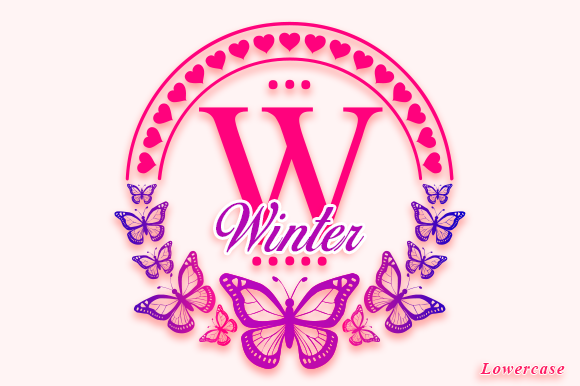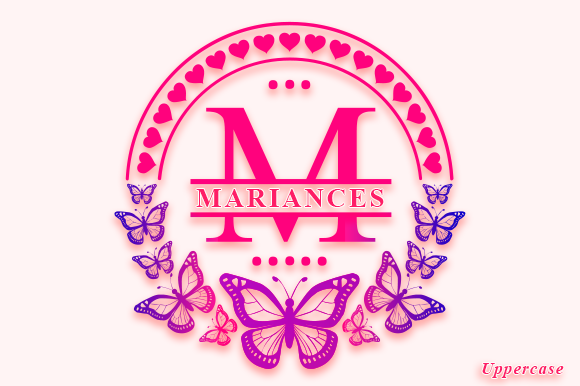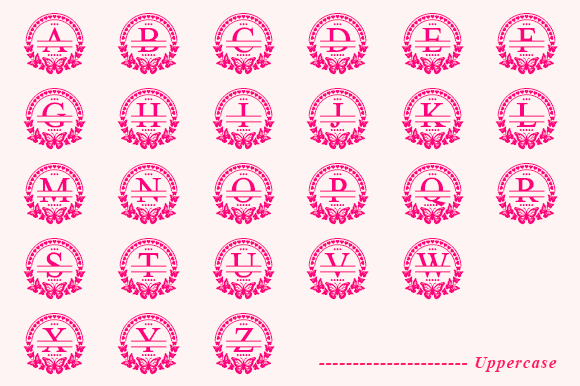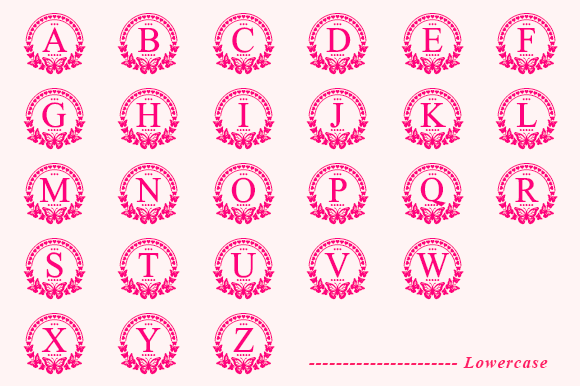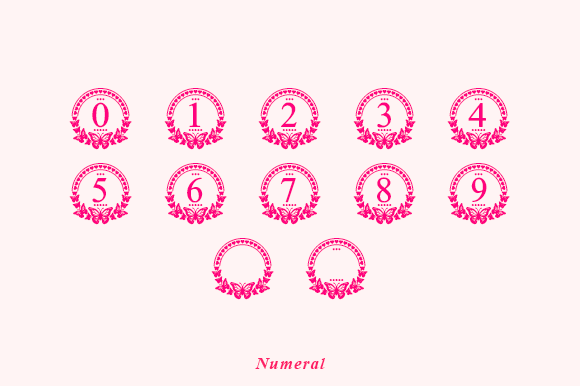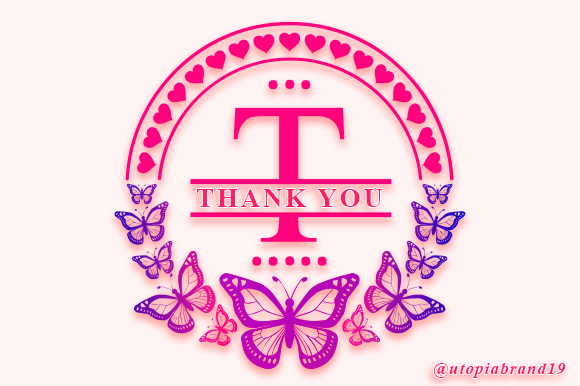
Introducing Butterlove Monogram Font: The Perfect Addition to Your Romantic Designs
Are you a designer or crafter looking for a unique and romantic font to add a touch of elegance to your projects? Look no further than the Butterlove Monogram Font. This dainty and decorative font is perfect for creating beautiful love letters, wedding invitations, and other design ideas that require a personal and sentimental touch.
What Makes Butterlove Monogram Font So Special?
Butterlove Monogram Font is a one-of-a-kind decorative font that exudes romance and sophistication. Its delicate and intricate design makes it perfect for adding a touch of whimsy and charm to any project. Whether you’re creating a wedding invitation, a love letter, or a custom gift tag, this font is sure to make your design stand out.
Perfect for Romantic Occasions
The Butterlove Monogram Font is specifically designed for romantic occasions. Its lovely and elegant design makes it perfect for:
- Love letters and romantic messages
- Anniversary cards and gifts
- Baby shower invitations and decorations
- Any other design project that requires a touch of romance and elegance
Easy to Use and Customize
Tips for Using Butterlove Monogram Font
Here are a few tips for using Butterlove Monogram Font in your designs:
- Use it as a headline font to add a touch of elegance and sophistication to your design
- Pair it with a simple sans-serif font for a beautiful and contrasting look
- Use it to create custom monograms and logos for your clients or personal projects
Why Designers and Crafters Love Butterlove Monogram Font
Butterlove Monogram Font has quickly become a favorite among designers and crafters, and for good reason. Here are just a few reasons why:
- Unique and one-of-a-kind design
- Perfect for romantic occasions and designs
- Adds a touch of elegance and sophistication to any project
- Versatile and can be used in a variety of design projects
If you’re looking for a unique and romantic font to add a touch of elegance to your designs, look no further than the Butterlove Monogram Font. With its delicate and intricate design, this font is perfect for creating beautiful love letters, wedding invitations, and other design ideas that require a personal and sentimental touch. So why wait? Download Butterlove Monogram Font today and start creating your own romantic and lovely designs!
Key Features of Butterlove Monogram Font
- Unique and one-of-a-kind decorative font
- Perfect for romantic occasions and designs
- Elegant and sophisticated design
- Versatile and can be used in a variety of design projects